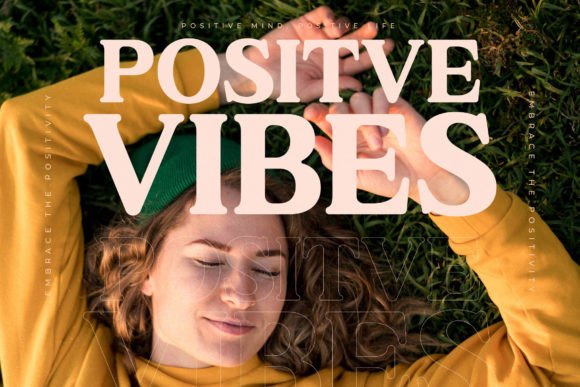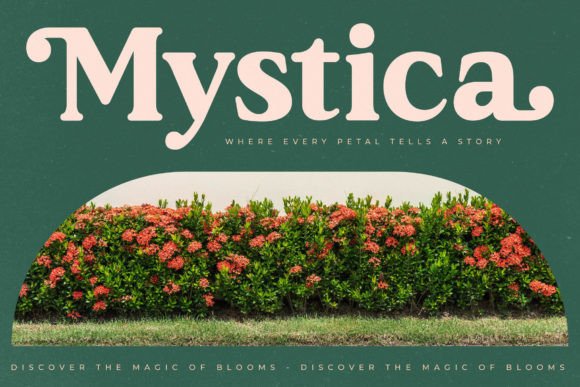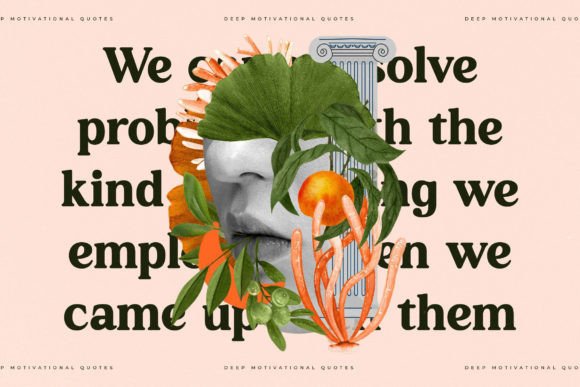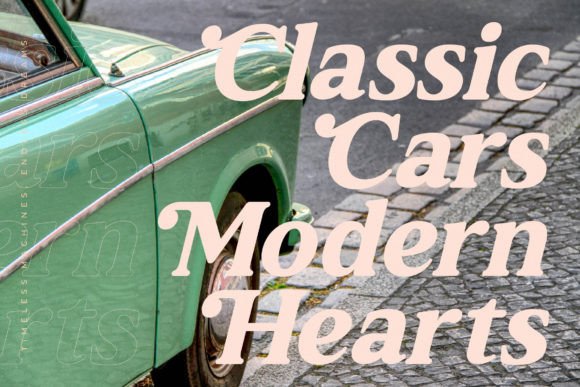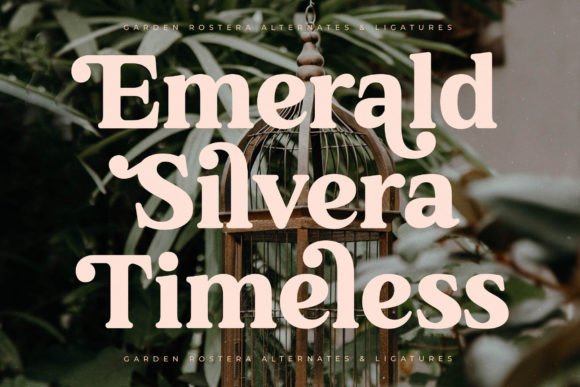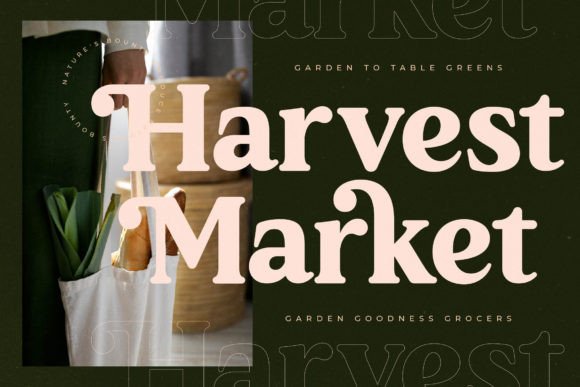
Garden Rostera Font: Elevate Your Designs with Modern Elegance
In the world of typography, a font can make or break the aesthetic of a design. For those seeking a modern and stylish serif font that embodies the perfect balance of clean lines and subtle curves, look no further than Garden Rostera. This contemporary font is designed to bring a touch of sophistication and elegance to any creative project, making it an ideal choice for editorial designs, luxury branding, and web typography.
The Essence of Garden Rostera
Garden Rostera is more than just a font; it’s a design statement. Its modern serif structure is carefully crafted to marry the simplicity of clean lines with the softness of subtle curves. This harmonious blend results in a font that exudes a sense of contemporary elegance, perfect for designers and crafters looking to elevate their work.
Applications of Garden Rostera
The versatility of Garden Rostera makes it suitable for a wide range of applications. Here are a few areas where this font truly shines:
- Editorial Designs: Whether you’re working on a magazine, a book, or any form of editorial content, Garden Rostera brings a level of sophistication that enhances the reader’s experience. Its readability and stylish appearance make it perfect for headings and body text.
- Luxury Branding: For brands aiming to convey elegance, luxury, and a modern edge, Garden Rostera is an excellent choice. Its unique serif design helps brands stand out in a crowded market, offering a distinctive voice.
- Web Typography: In the digital realm, Garden Rostera proves to be a versatile asset. Its clean and modern appearance ensures that it looks great on various devices, making it ideal for websites, blogs, and digital platforms.
Why Choose Garden Rostera?
With so many fonts available, what sets Garden Rostera apart? Here are a few reasons why designers and crafters are gravitating towards this modern serif font:
- Contemporary Aesthetic: Garden Rostera offers a fresh take on serif typography, making it perfect for those looking to infuse their designs with a modern vibe.
- Versatility: From print to digital, Garden Rostera’s adaptability makes it a valuable addition to any designer’s toolkit.
- Elegance: The subtle curves and clean lines of Garden Rostera bring an air of elegance to any composition, ensuring that your designs stand out.
Tips for Using Garden Rostera Effectively
To make the most of Garden Rostera, consider the following tips:
- Pair it with Simplicity: Let Garden Rostera be the focal point of your design. Pair it with simple backgrounds or graphics to ensure it takes center stage.
- Experiment with Sizes: Play with different sizes to create visual hierarchy. Use larger sizes for headings and smaller sizes for body text to maintain readability.
- Consider Color: While Garden Rostera looks great in black and white, experimenting with colors can add another layer of sophistication to your design.
Garden Rostera is more than just a font; it’s a design companion that brings modern elegance to the forefront of your creative projects. Its sophisticated presence, combined with its versatility and contemporary aesthetic, makes it an excellent choice for designers and crafters looking to elevate their work. Whether you’re working on editorial designs, luxury branding, or web typography, Garden Rostera is sure to enhance every composition it’s a part of. Choose Garden Rostera for a touch of modern elegance that sets your designs apart.